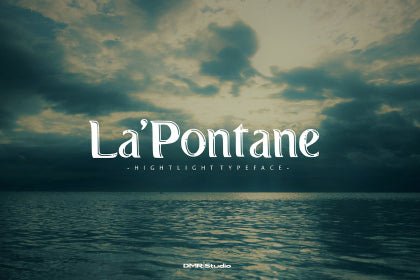
Free LaPontane Display Typeface
Free lapontane display typeface for graphic designers that need to present their work in a professional way. This free font file was found from the amazing source called Free Design Resources. This is absolutely beautiful font so you can easily make world-class designs.